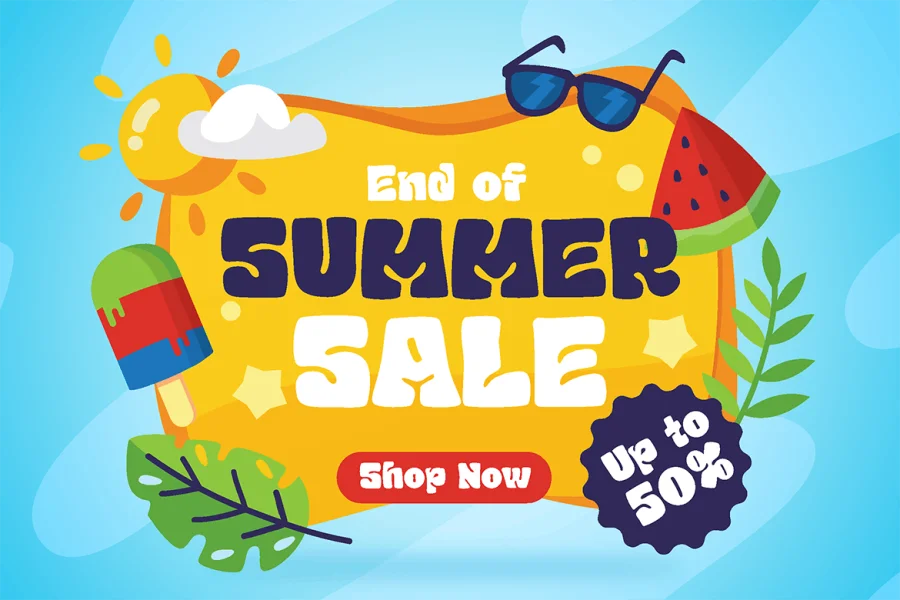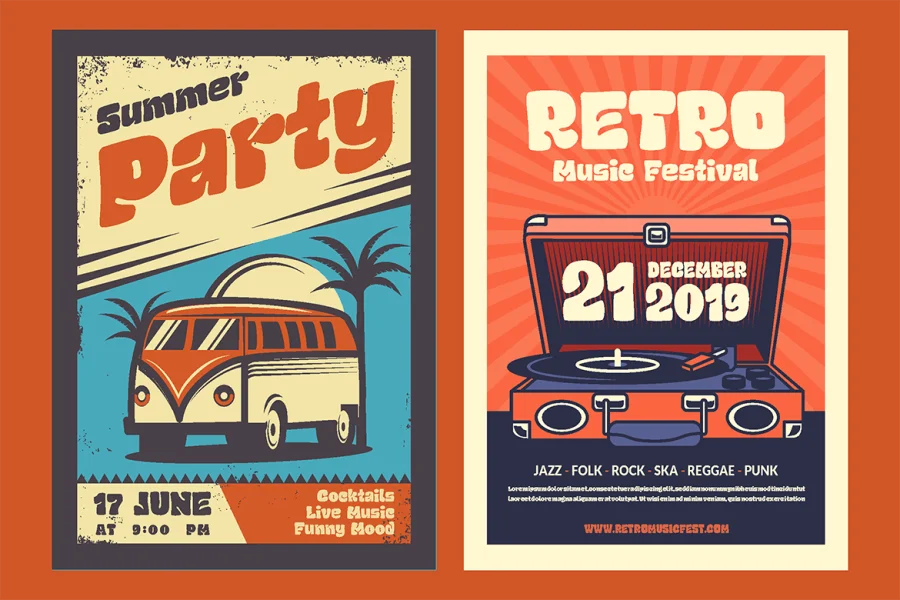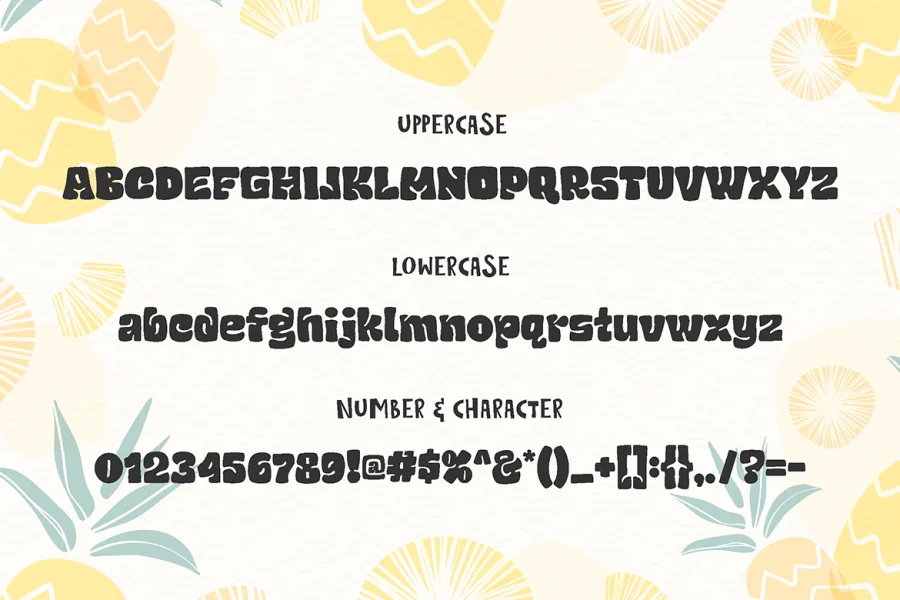
Who said a retro is just for the older people? Chubby and Groovy break the boundaries. It brings happiness and a childish attitude in the grooviest way ever.
Suit perfectly for retro poster, retro and funk merchandise, movie title, beach restaurant menu, magazine, youtube covers, youtube thumbnails, social media page covers and so on…